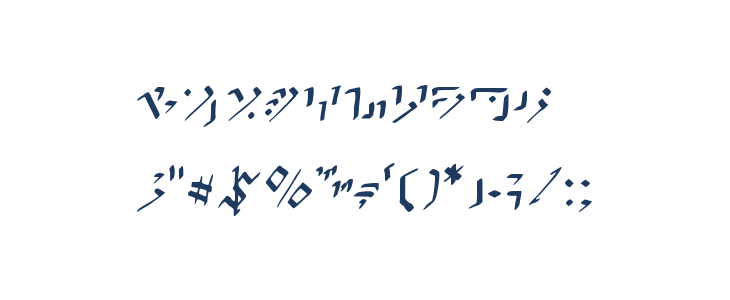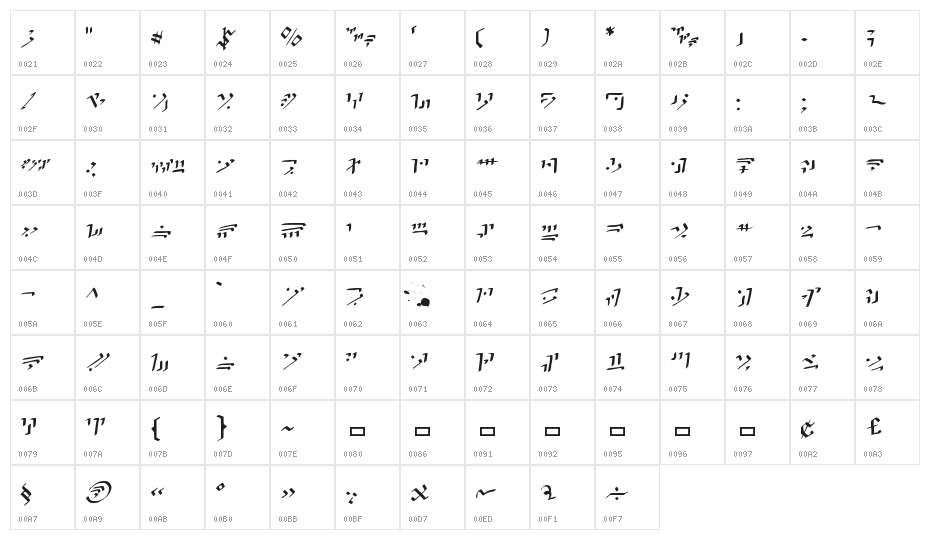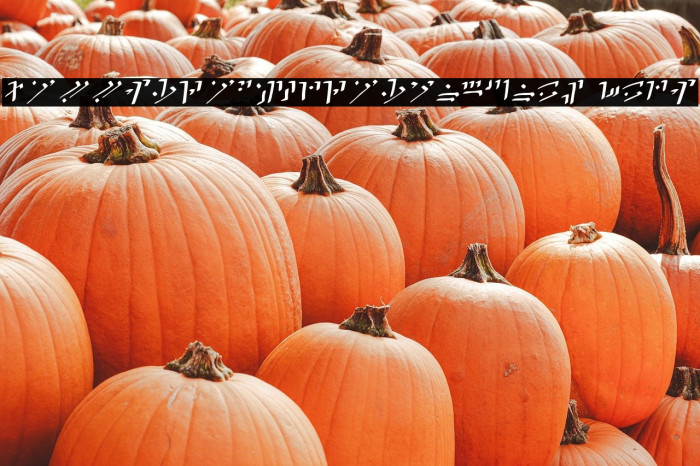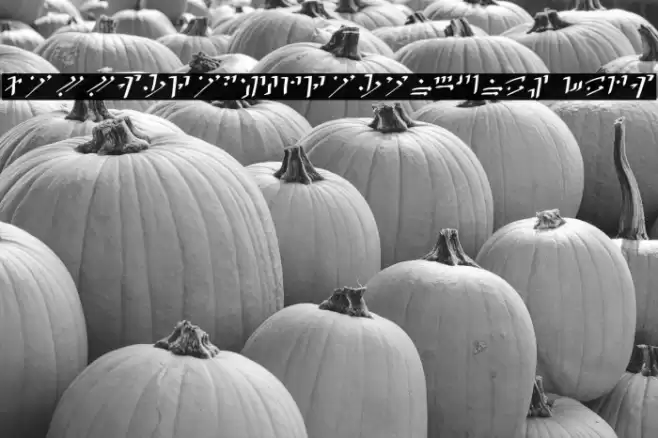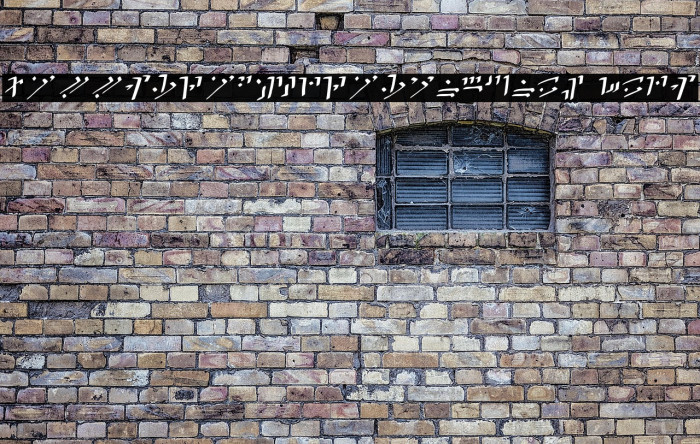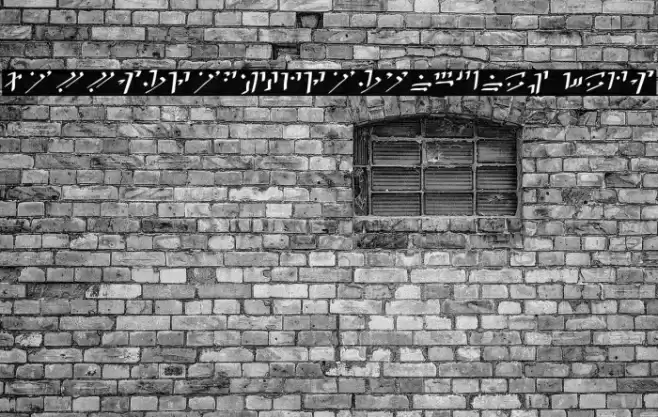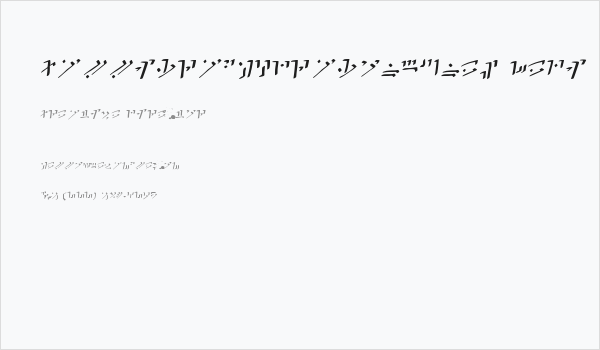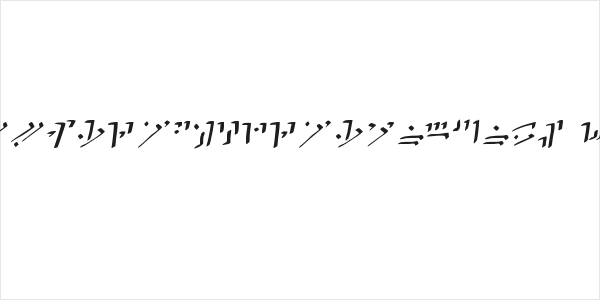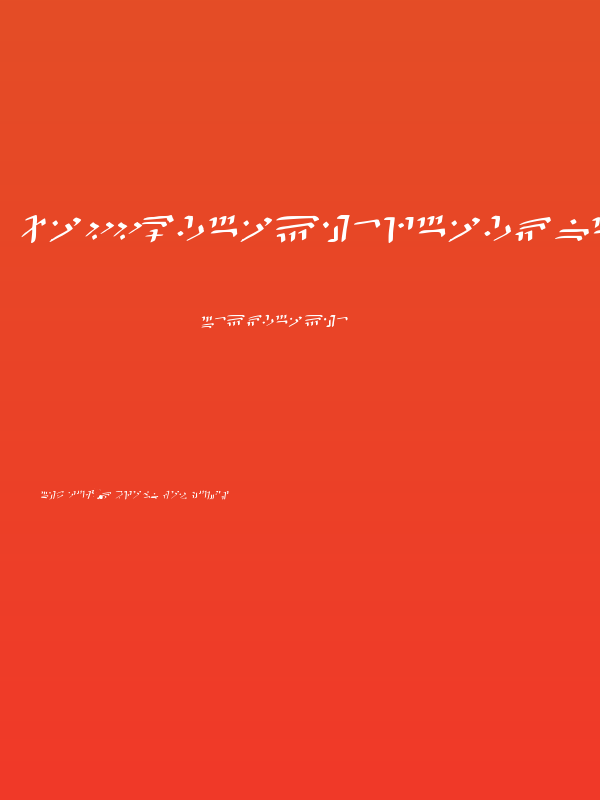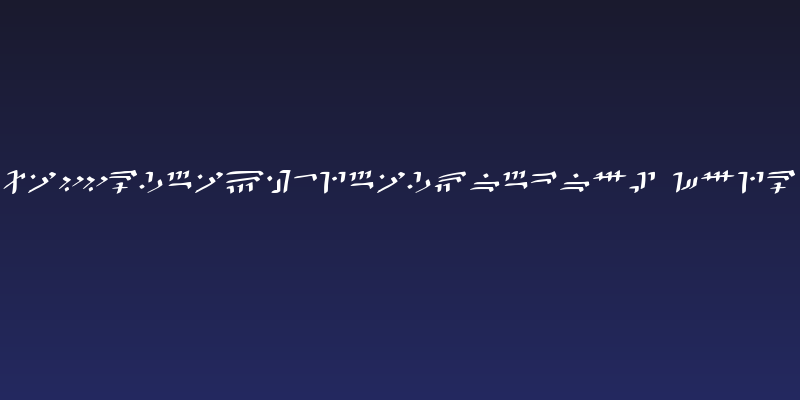
CalligraphyDragonRunes Medi Font
CalligraphyDragonRunes Medi Description
This font features a unique and artistic style that resembles ancient runes or calligraphy. The characters are crafted with sharp, angular strokes and exhibit a flowing, mystical appearance. Each letter is distinct, with varying line thickness that adds a dynamic and expressive quality. The font's design is reminiscent of fantasy or medieval themes, making it ideal for creative projects that require an element of mystery or enchantment. The special characters are equally stylized, maintaining the overall aesthetic of the font.
| Use Case | Logos, Titles, Creative projects |
| Proposed Projects | Ideal for fantasy-themed projects, game design, book covers, or any creative work requiring a mystical or ancient aesthetic. |